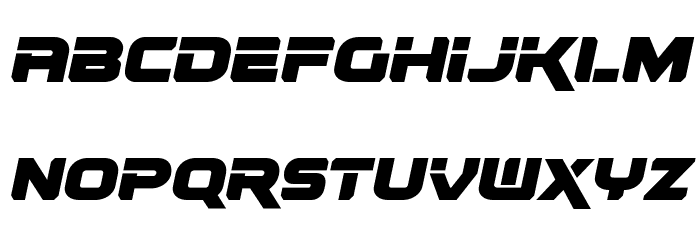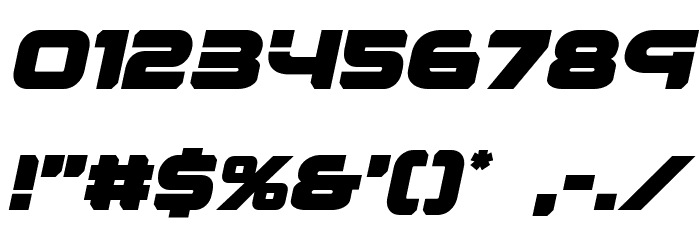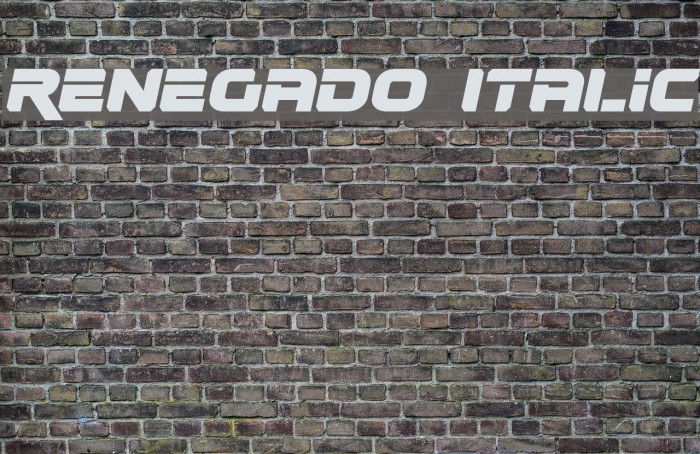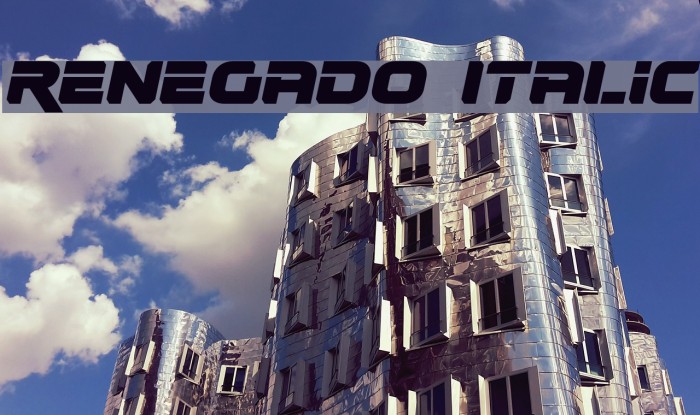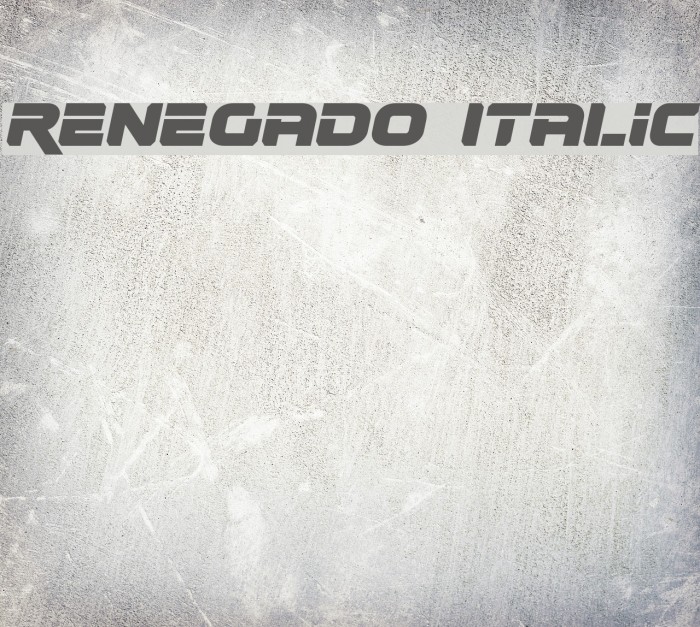
Renegado Italic Font
This font features a bold, italicized style with a futuristic and dynamic appearance. The characters are slightly slanted, giving a sense of motion and speed. The strokes are thick and consistent, providing a strong visual impact. The design includes sharp angles and clean lines, contributing to its modern and edgy look. The numbers and special characters maintain the same boldness and angularity, ensuring uniformity across all glyphs. This font is highly legible and stands out due to its unique style.
A bold, italicized font with a futuristic and dynamic design.
- Proposed Projects: Ideal for use in technology branding, sports team logos, video game titles, and sci-fi movie posters.